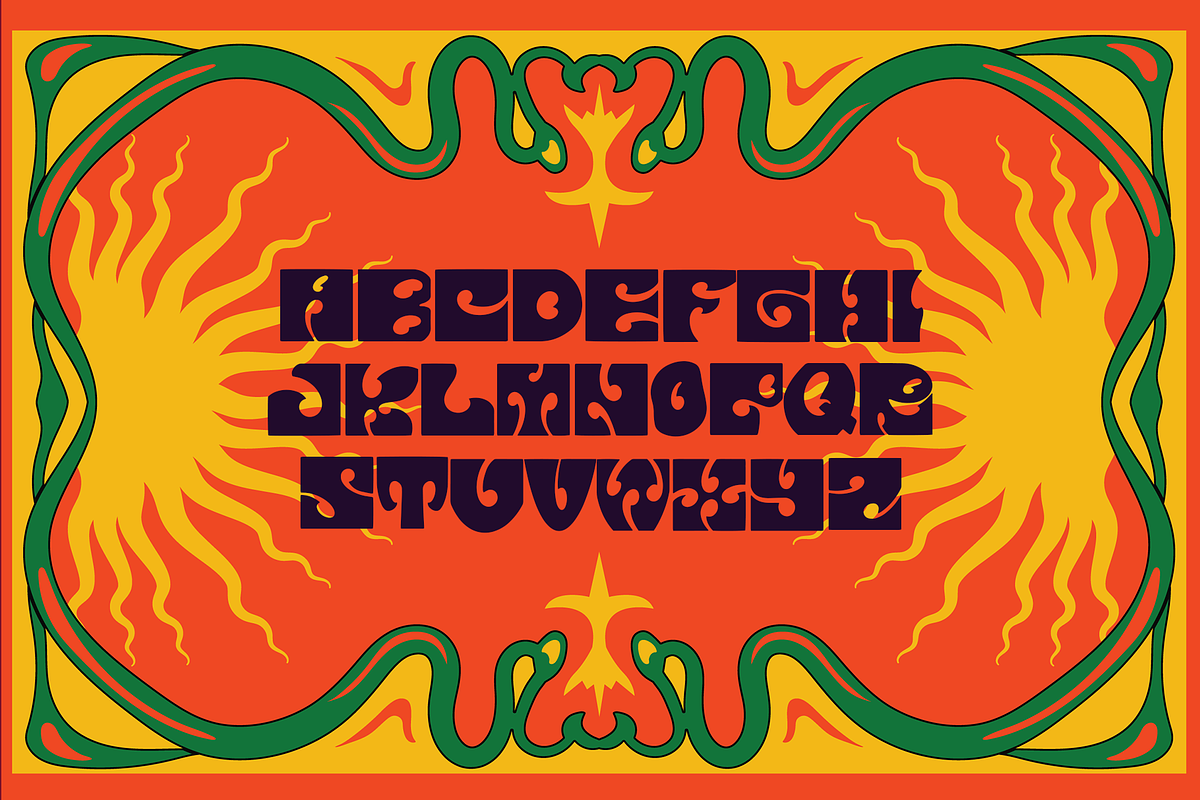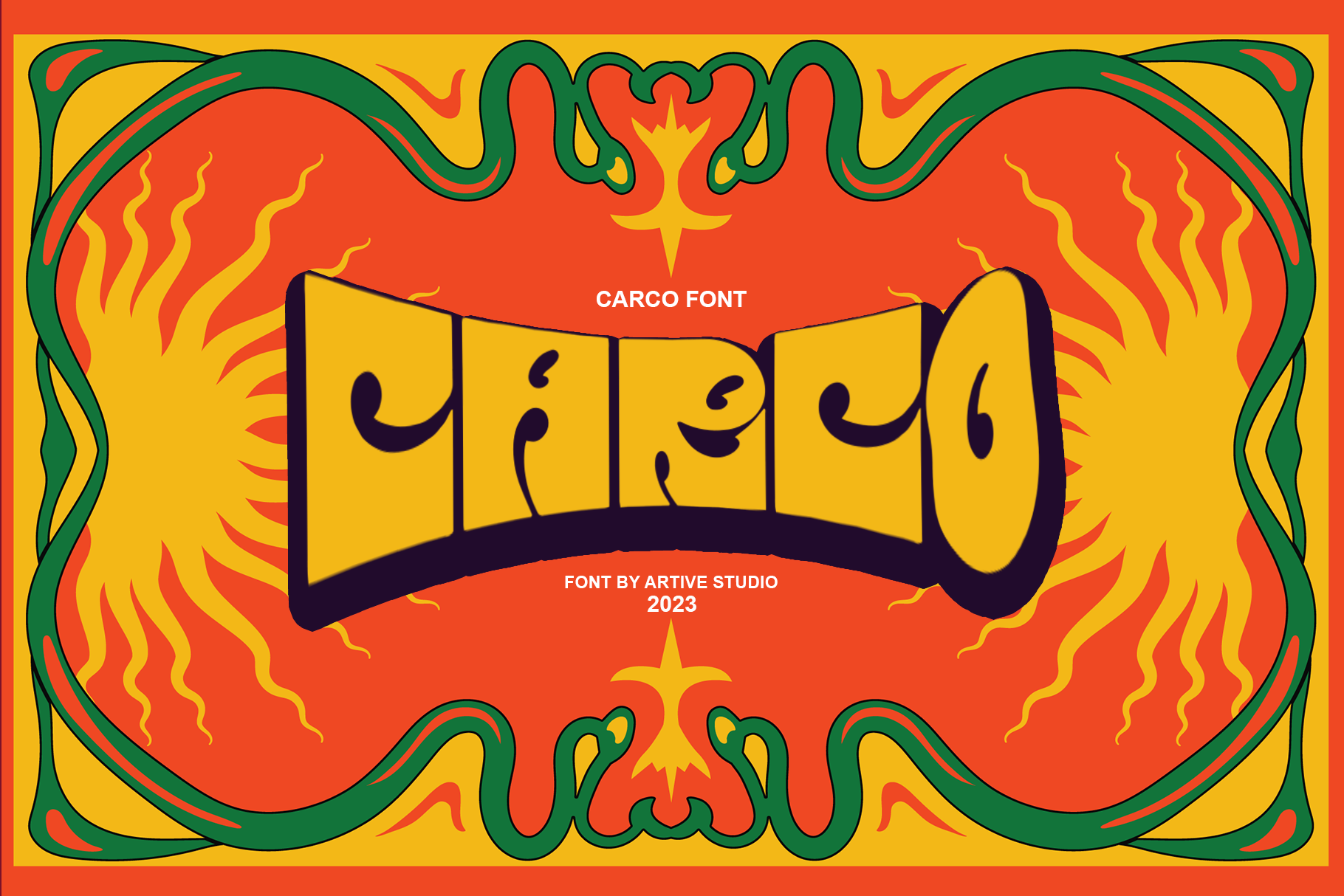
Carco Brutalism Font
Carco - Brutalism Font with a Exrtreme Brutalism Character. Use this display font to add a special cute touch to any design idea you can think of!